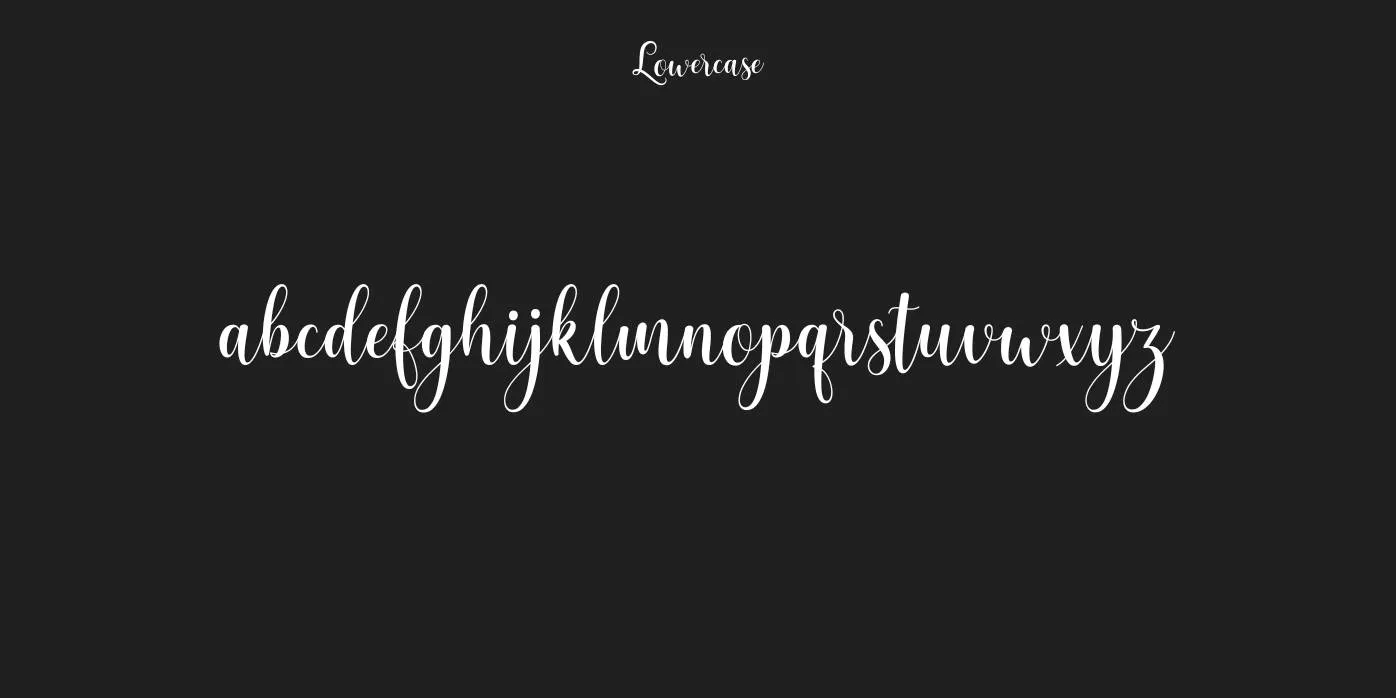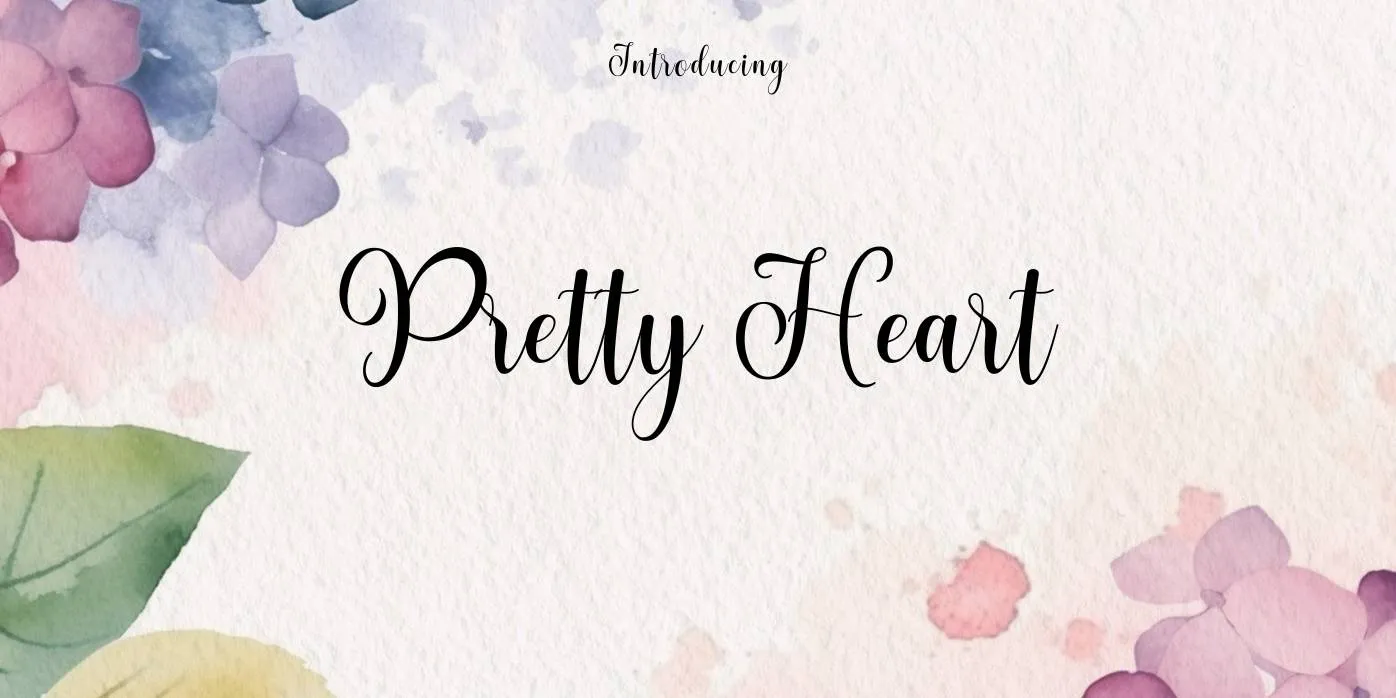
Pretty Heart Font
Let’s talk about a very lovely typeface Pretty Heart Font. This stunning Script font is designed by Zikrillah and manufactured by Suza Studio. You can make so many projects by using this font. It is a very classy calligraphy font.
It has many amazing features as it contains 442 characters, 408 glyphs, and 1000 units per Em. An online generator tool also supports this font which you can convert your simple designs into stylish looks without downloading the font within seconds. You can copy and paste your text into it. The weight of the font is semi-light and its width is semi-condensed.
You can also use this font for pairing with other fonts like my bestie font to give a more attractive and stylish look to your projects. Usage This beautiful typeface can be used to design different projects. It has many characters, small letters, capital letters, symbols, punctuations, special characters, and numbers which makes it perfect for many projects. It can be used to design wedding cards, birthday cards, greeting cards, and other invitation cards as well.
You can use it for making business cards and advertisements. This font can be used to design modern calligraphy with a stylish look. You can use this font for branding and product packing. It looks good on themed party decorations like birthday events and other parties.